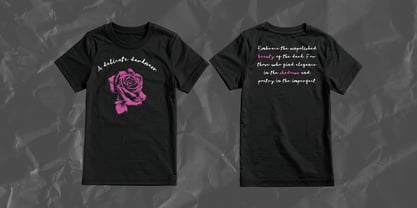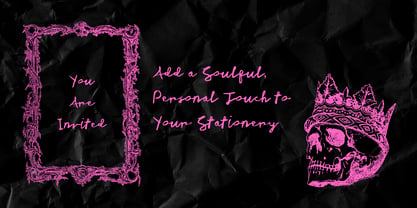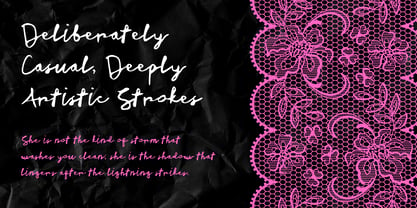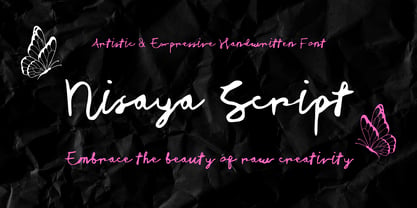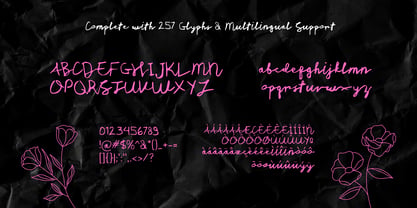
Nisaya Script
by Kalam
The Nisaya Script Font Family was designed by Wahyu Eka Prasetya, Moch Zamroni and published by Kalam. Nisaya Script contains 2 styles and family package options. More about this family
Nisaya Script: Artistic & Expressive Handwritten Font
Embrace the beauty of raw creativity with Nisaya Script, a charmingly imperfect, artistic handwritten font designed by Moch. Zamroni and Wahyu Eka Prasetya. Featuring an organic, unpolished flow with deliberately casual strokes, this typeface captures the authentic essence of genuine handwriting. Its artistic, slightly messy aesthetic brings a personal, soulful touch to any creative project, making it stand out from overly rigid digital scripts.
Key Features & Design Style
• Artistic Imperfections: Crafted with lively, unrestrained strokes that celebrate a raw, authentic hand-drawn feel rather than mechanical perfection.
• Complete Character Set: Includes 257 glyphs supporting robust multilingual needs and everyday punctuation.
• Dual Styles: Available in Regular and Slant styles to give your design layouts extra dynamic flow and versatility.
Best Design Uses
• Creative Branding & Logos: Ideal for boutique brands, signature logos, artisan product labels, and handcrafted goods.
• Editorial & Social Media: Eye-catching Instagram quotes, creative book covers, magazine headers, and mood boards.
• Stationery & Merch: Unique wedding invitations, greeting cards, apparel design, and artistic posters.
Why Choose Nisaya Script?
If you are looking to infuse your designs with genuine human emotion and an artistic, free-spirited vibe, Nisaya Script is the perfect choice. Its casual yet expressive charm ensures your headlines and text blocks capture attention with a warm, personal signature look.